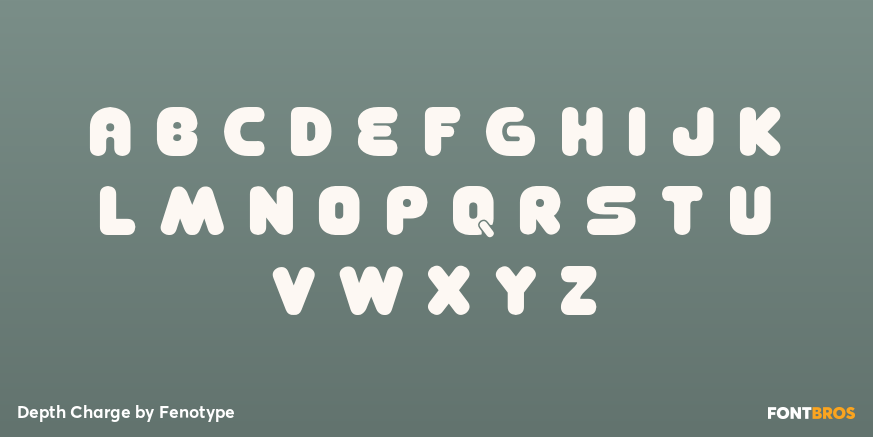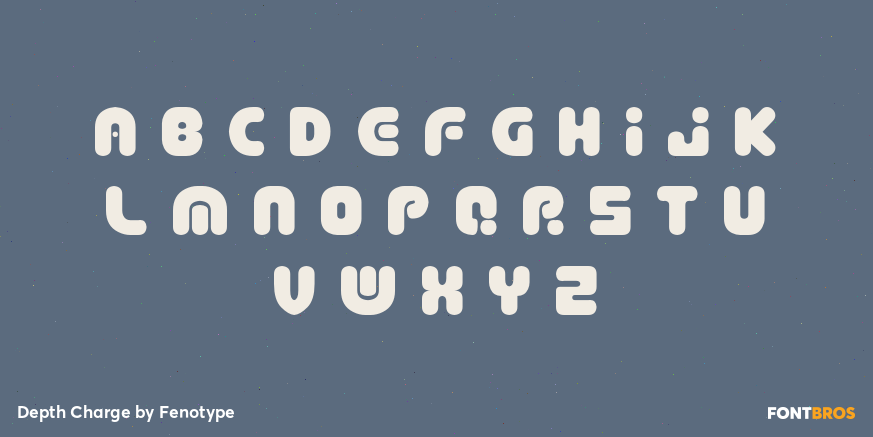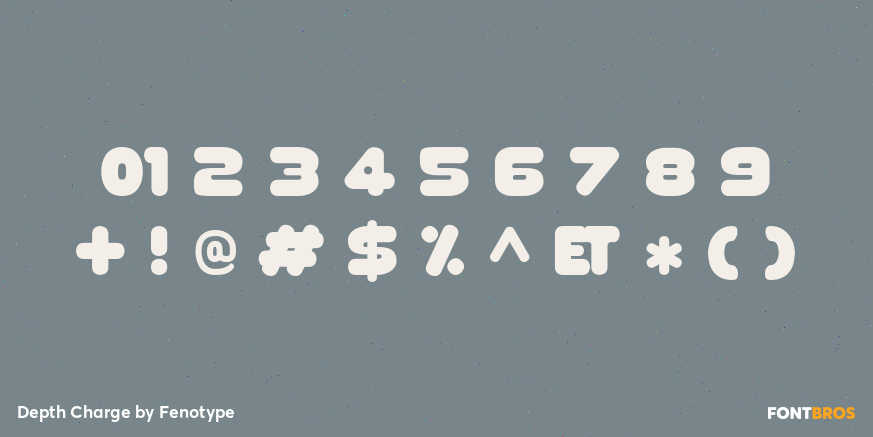
Depth Charge
Font Family by Fenotype
Depth Charge is a single-style sans serif with a playful, futuristic edge. Its look feels fun, offbeat, and slightly wacky, giving display typography a bold personality that stands out quickly without losing a clean, graphic structure.
This is the kind of face that works well when you want type to carry the mood of the design—think posters, branding concepts, packaging, social graphics, or other decorative display uses that benefit from a quirky sci-fi flavor. Designed by Fenotype, it offers a distinctive voice for projects that call for something energetic, unusual, and visually memorable.